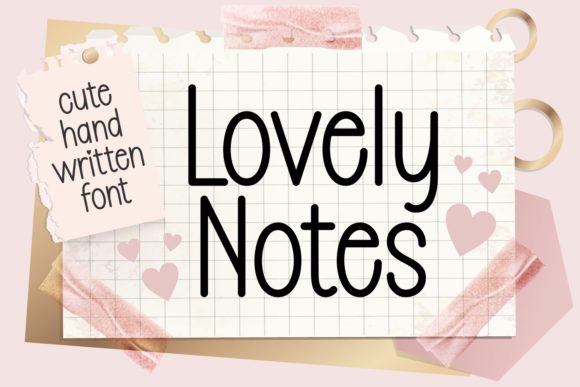
Introducing Lovely Notes Font - the ultimate companion for all your creative endeavors! Crafted by the talented Keithzo from 7NTypes, this sweet and friendly display font is here to add a touch of magic to your designs.
With Lovely Notes, the possibilities are endless. Its natural and unique style brings a sense of warmth and elegance, making it the perfect choice for a wide range of projects. Whether you're designing CD liner notes, creating eye-catching advertisements, or even personalizing your own stationery, this font will surely captivate your audience.
Say goodbye to boring and mundane typography, and let Lovely Notes elevate your designs to new heights. Its captivating curves and intricate details will effortlessly draw attention and leave a lasting impression. Imagine your words gracefully dancing across the page, effortlessly conveying your message with a touch of whimsy.
Not only does Lovely Notes embrace creativity, but it also understands the importance of functionality. This font is meticulously designed to ensure readability, ensuring that your words are easily absorbed by your audience. Every letter is carefully crafted to strike the perfect balance between style and legibility, allowing your message to shine through effortlessly.
Best Font For CD Liner Notes? Look no further! Lovely Notes is the answer you've been searching for. Its harmonious blend of elegance and playfulness will beautifully complement your music, capturing the essence of your artistry in every note.